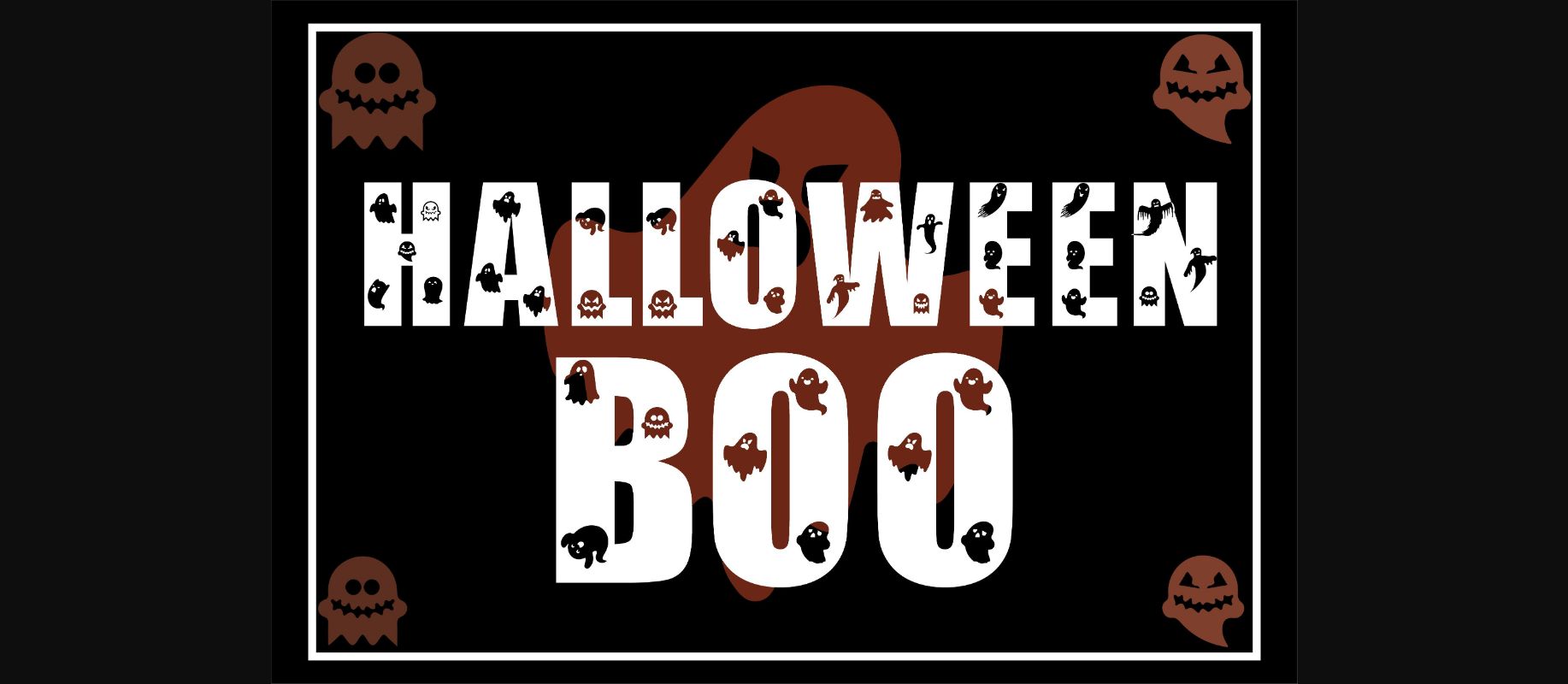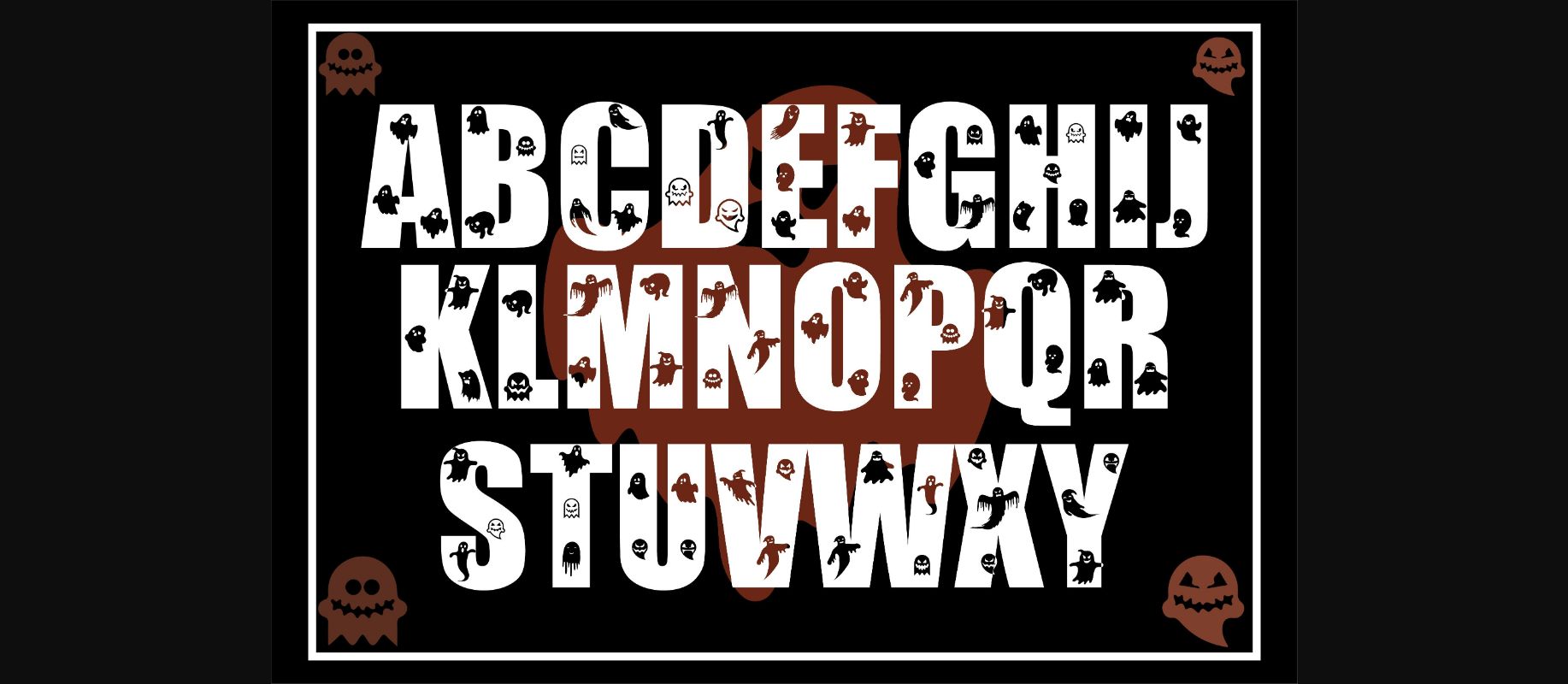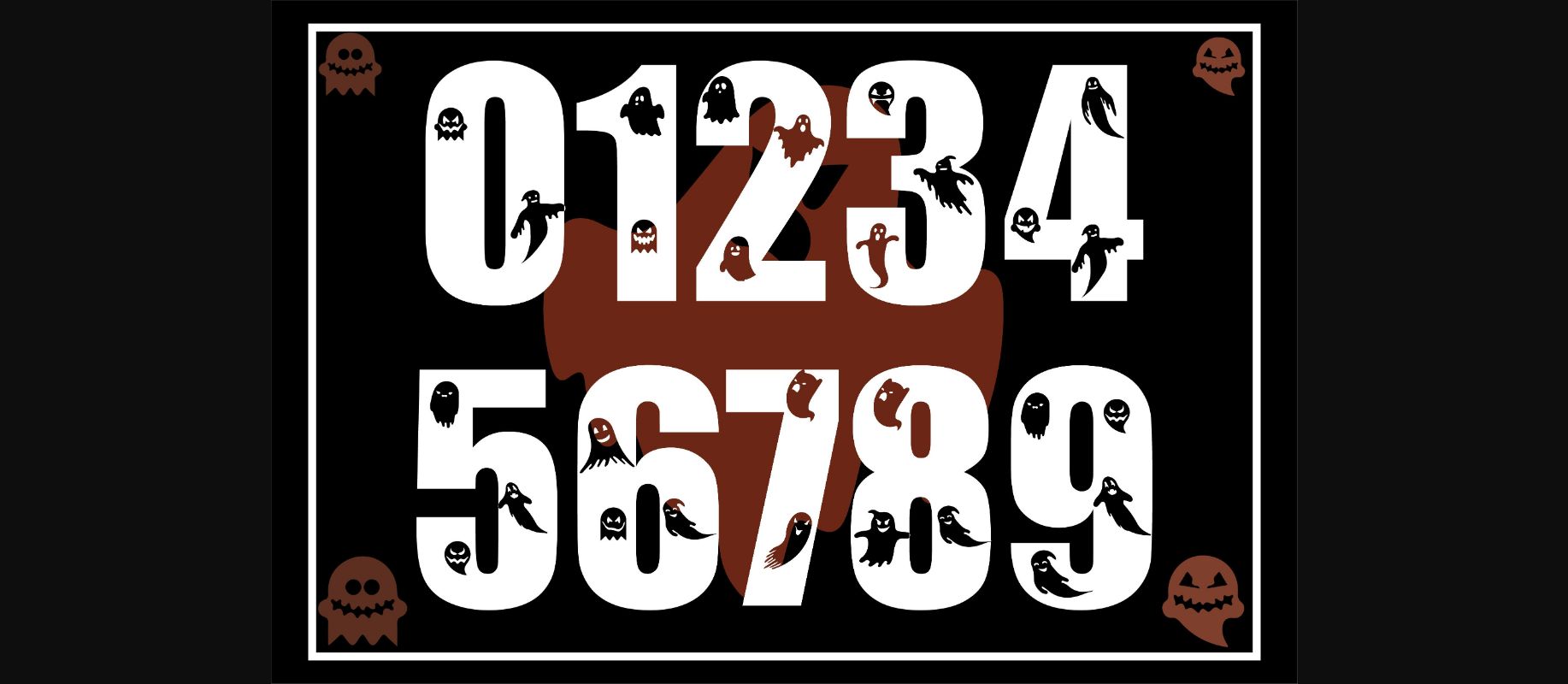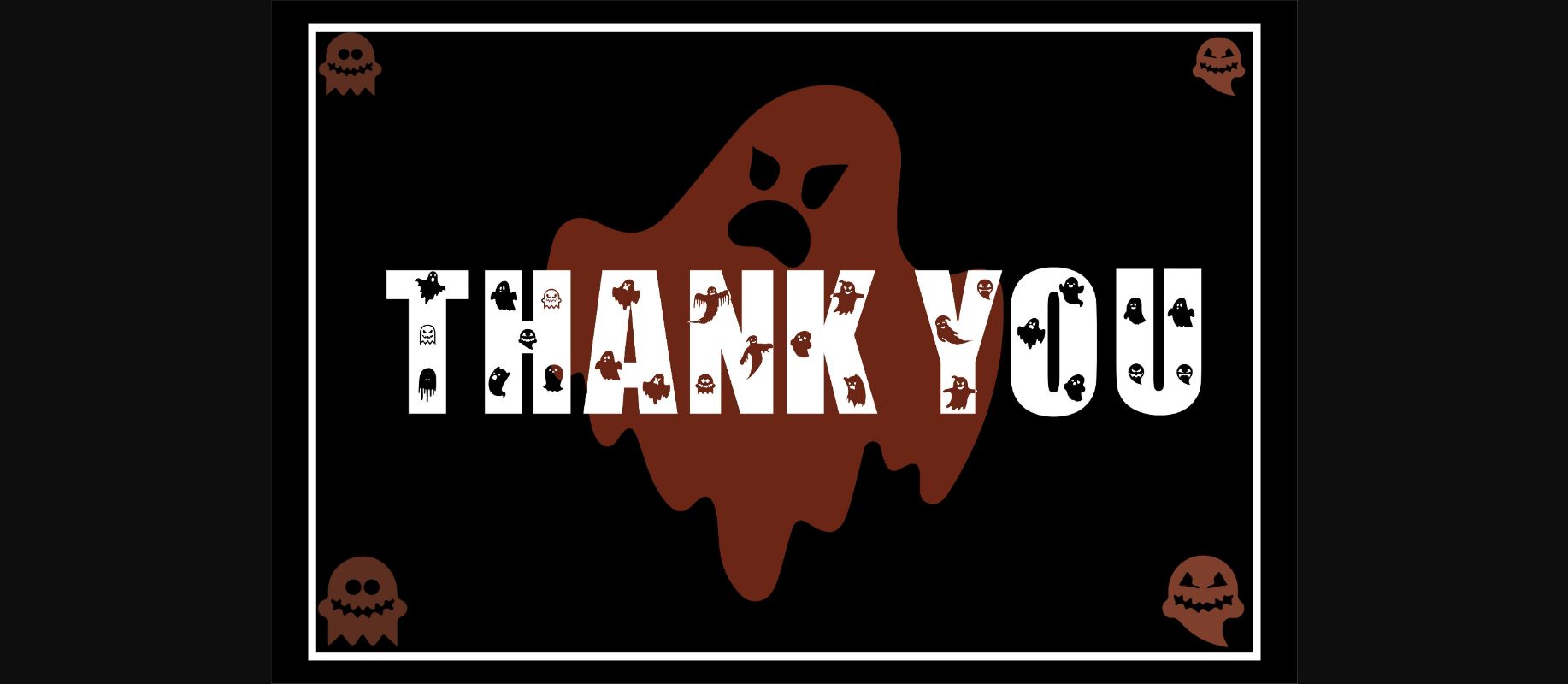
About Halloween Boo Font
Halloween Boo is a spooky and dramatic decorative font. It is perfectly suitable for any Halloween-related project or crafty idea!